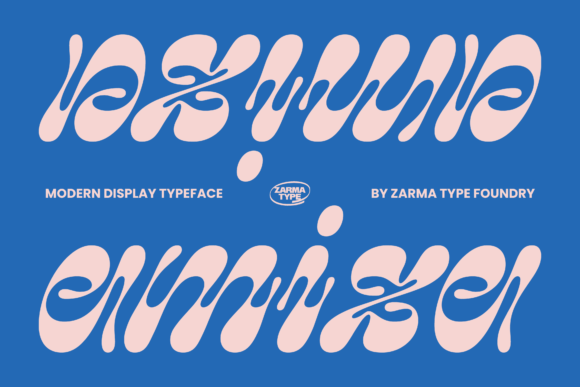
Journey into the realm of typographic artistry with Amiza, a captivating display font that evokes the spirit of psychedelic and experimental eras. This font is not just a collection of letters; it's an expression of audacious creativity, a dance of curves and details that captivates the eye and ignites the imagination.
Amiza is a symphony of elegance and boldness, a font that commands attention and leaves an indelible mark. Its intricate strokes weave a visual tapestry that draws the viewer in, creating a sense of mystery and intrigue. Its psychedelic influences bring a touch of the unexpected, while its experimental nature pushes the boundaries of design.
With Amiza, your designs will transcend the ordinary, becoming visual masterpieces that speak volumes. Whether you're crafting a vintage logo, designing eye-catching headlines, or creating immersive editorial layouts, Amiza becomes your artistic ally, transforming your vision into a reality that captivates and inspires.
Amiza is not just a font; it's a design movement, a rebellion against the mundane. It's a font that ignites the creative spark, propelling you to new heights of innovation. Embrace the allure of Amiza and unleash the boundless potential of your imagination. Dare to be different, dare to be remarkable.
In a world saturated with uniformity, Amiza is your beacon of individuality, your passport to a realm of design excellence. Its versatility knows no bounds, adapting seamlessly to a myriad of design applications. Branding, editorial design, posters, social media graphics - Amiza enhances every project with its captivating presence.
Let Amiza be the catalyst for your creative revolution. Its enigmatic curves and mesmerizing details will transform your designs into works of art, leaving an indelible mark on the minds of your audience. Embrace the allure of Amiza and elevate your designs to new heights of brilliance.